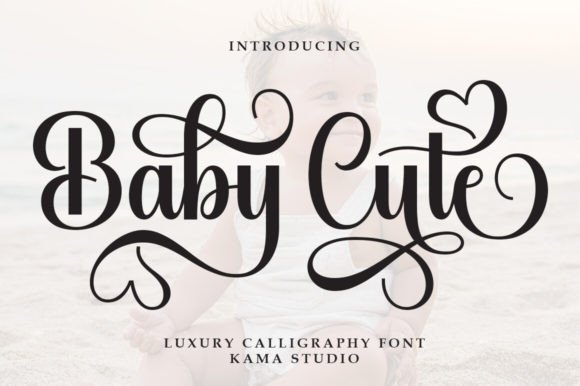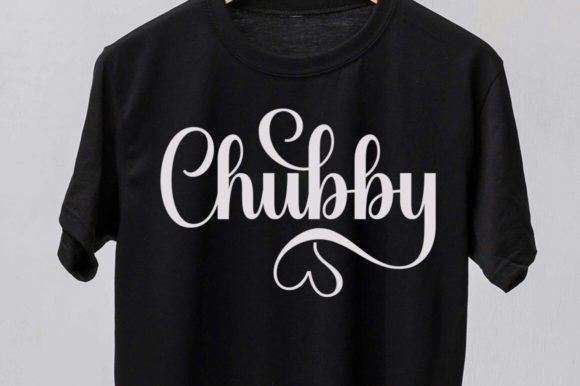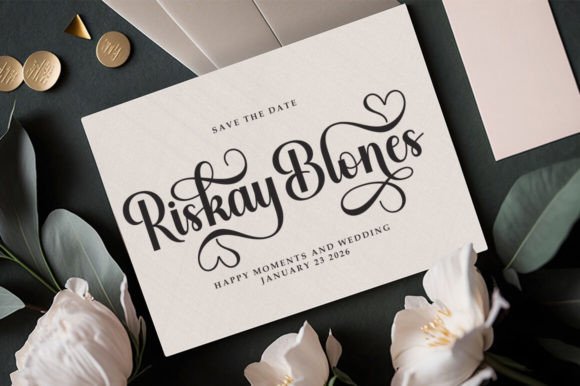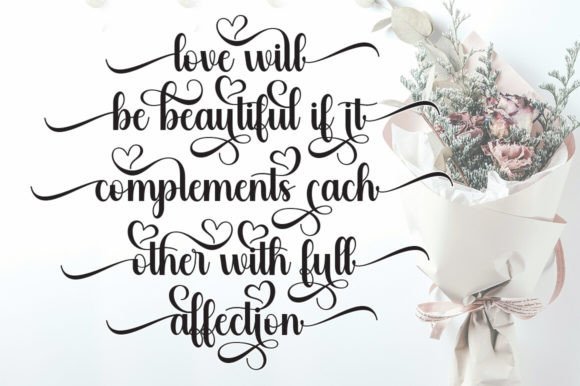
About the Baby Cute Font
Introducing the Baby Cute Font, a beautifully crafted typeface designed to elevate your creative projects. Baby Cute feels equally charming and elegant. This stunning script font is a stylish homage to luxurious calligraphy. It will elevate any design project to the highest level, be it branding, titles, wedding designs, invitations, signs, logos, labels and more!
Baby Cute Font Usage Examples
Baby Cute Font Example